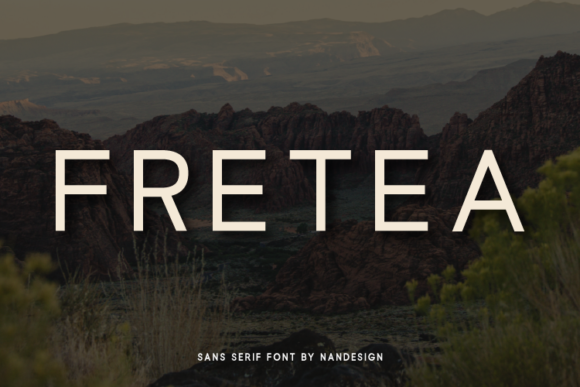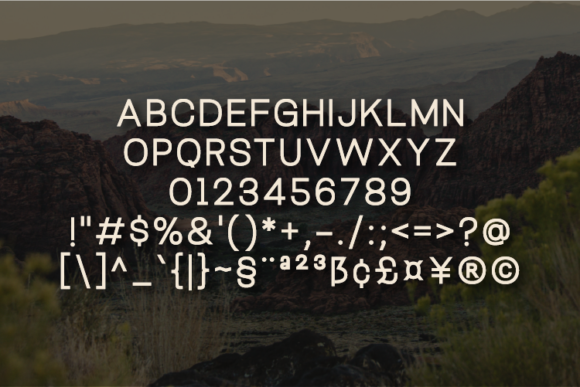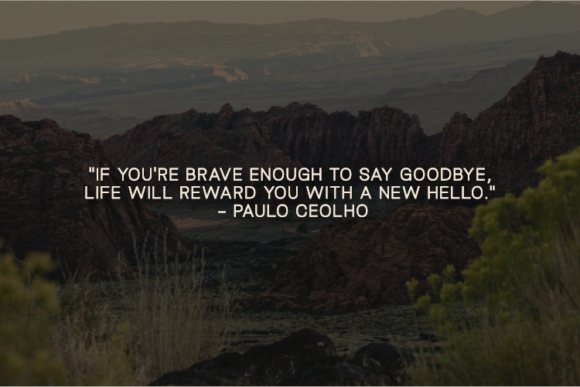
Unlock Your Creativity with Fretea Font
Have you ever found yourself staring at a blank page, waiting for that spark of inspiration to strike? It’s a familiar feeling for many designers and creatives. But what if we told you that the right font could be the key to unlocking your next big idea?
Enter Fretea Font, a sleek and modern sans serif font designed to elevate your creative projects. With its clean lines and minimalist aesthetic, Fretea Font is the perfect companion for designers looking to add a touch of sophistication to their work. Whether you’re crafting a logo, building a website, or creating a marketing campaign, Fretea Font is the versatile tool you need to make your designs stand out.
As a valuable addition to your design arsenal, Fretea Font offers endless possibilities for creative expression. Its adaptability and timeless style make it an ideal choice for a wide range of projects, from digital interfaces to print materials. So why not give Fretea Font a try and discover the difference it can make in your next design project?
Fretea Font Key Features
- Size: The font family includes a range of weights and styles, from Thin to Extra Bold, providing flexibility for various design applications.
- Resolution: Fretea Font is designed to work at high resolutions, making it suitable for use in digital applications, including web design, mobile apps, and print materials.
- Unique Characteristics: The font’s distinctive rounded edges and smooth curves give it a friendly, approachable feel, making it ideal for use in branding, advertising, and editorial design.
- Character Set: Fretea Font includes a comprehensive character set, supporting multiple languages and providing a wide range of glyphs, including ligatures and ornaments.
Fretea Font Review
Overall, I’m quite impressed with the Fretea Font. It has a unique and modern design that can add a touch of sophistication to any project. Here are some of its strengths: ✨
- Distinctive Letterforms – The font features bold, geometric letterforms that give it a striking appearance.
- High Legibility – Despite its bold style, the font remains highly legible, making it suitable for body text.
- Wide Character Set – Fretea Font includes a wide range of characters, including punctuation and symbols, which can be useful for designers who need to work with non-English text.
- Not Suitable for Small Text – Due to its bold style, the font can become difficult to read at small sizes.
- Limited Expressiveness – While Fretea Font is versatile, it may not be the best choice for projects that require a lot of emotional expression or nuance.
Overall, I’d say Fretea Font is a solid choice for designers who want a modern, sophisticated font that can add a touch of elegance to their projects. While it has its limitations, it’s definitely worth considering for the right project.
Getting the Most Out of Fretea Font
For optimal results, use Fretea Font in combination with high-quality graphics and images. Experiment with different font sizes, colors, and alignments to achieve the desired visual effect.
Fretea Font is ideal for creative projects such as branding, logos, and infographics. It is also suitable for use in headings, titles, and other display text.